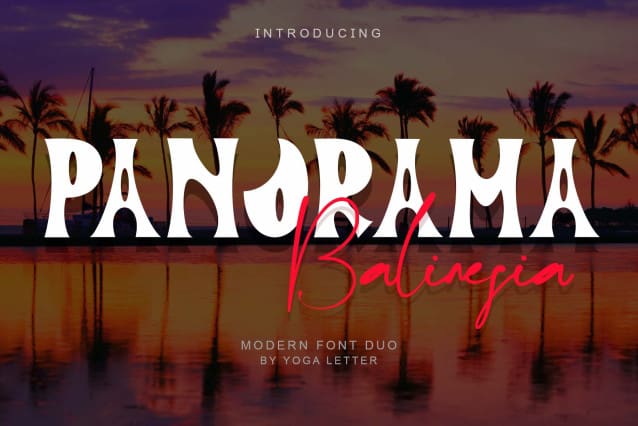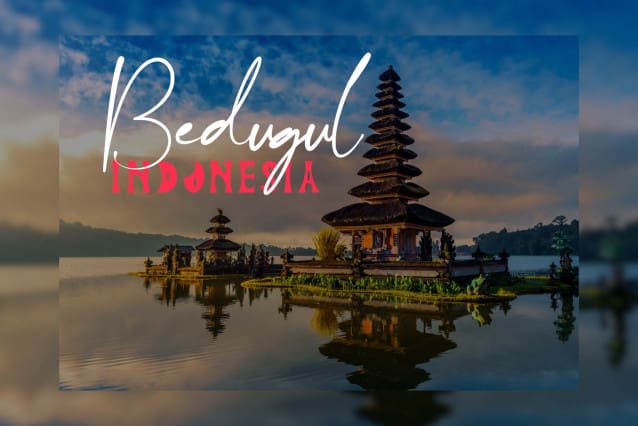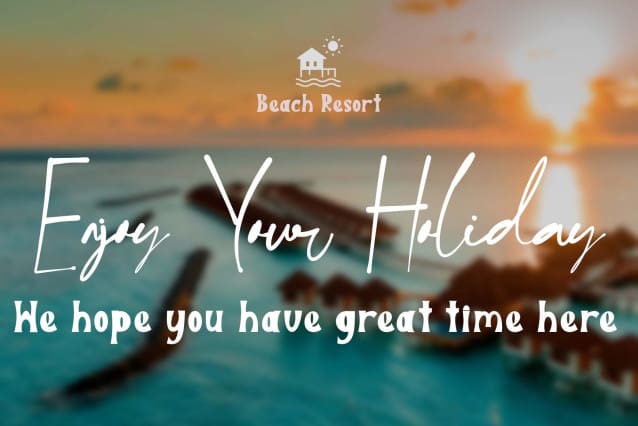
Panorama Balinesia Font
Panorama Balinesia Font is two fonts combined into one. This font consists of a display font consisting of uppercase letters, lowercase letters, numerals, punctuation, ligatures, and multilingual support, as well as a signature font consisting of uppercase letters, lowercase letters, numerals, punctuation, ligatures, and multilingual support. Very suitable for business branding, weddings, invitations, vacations, holidays, and others.